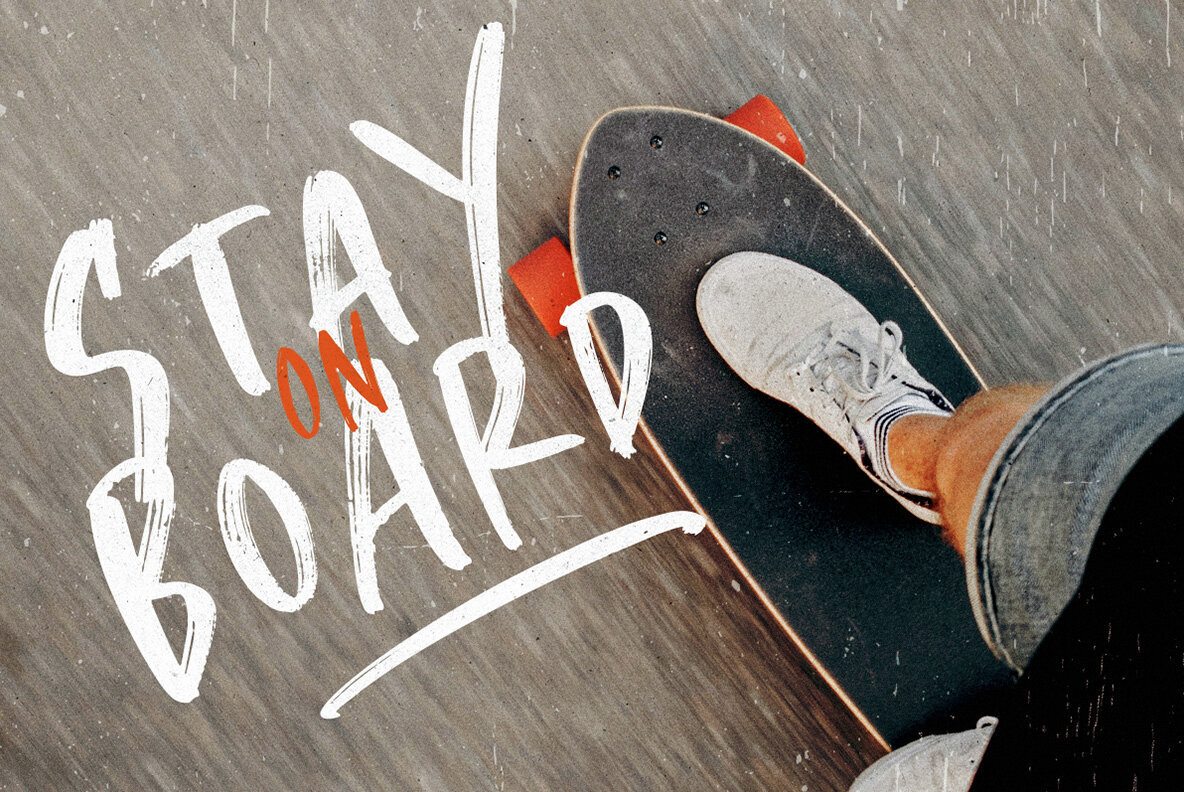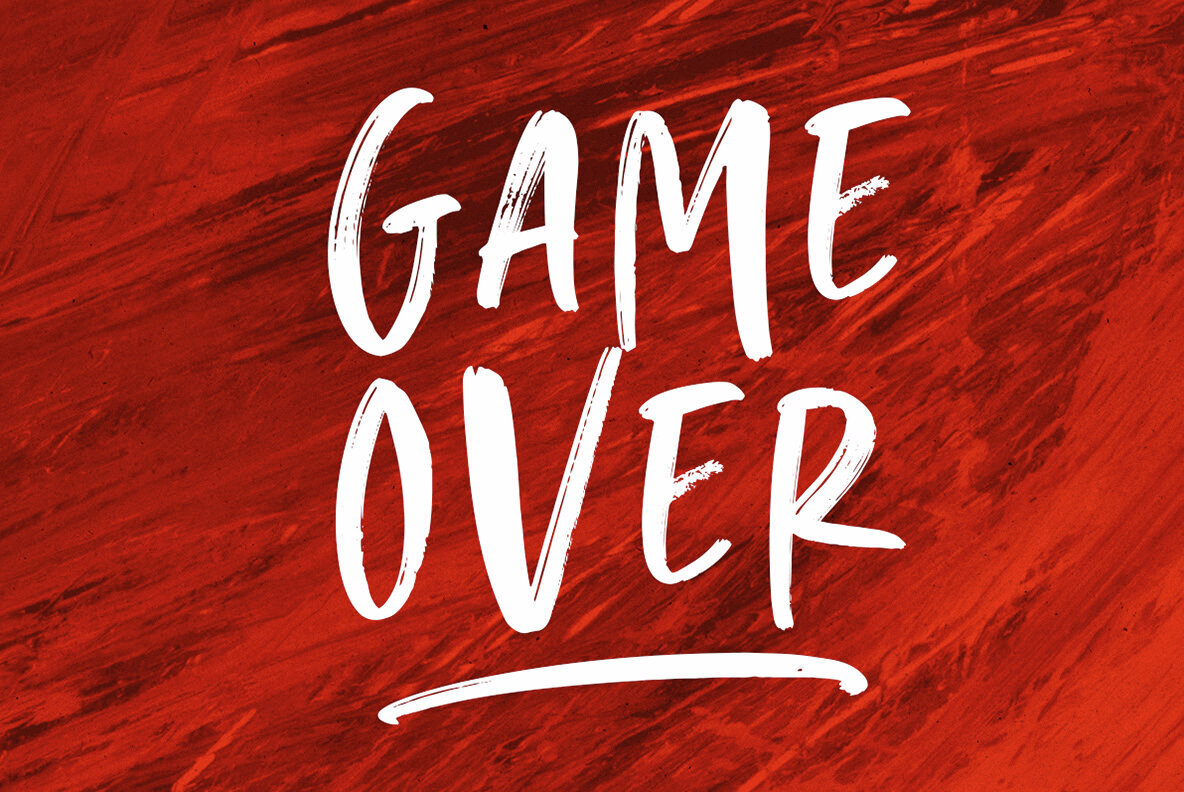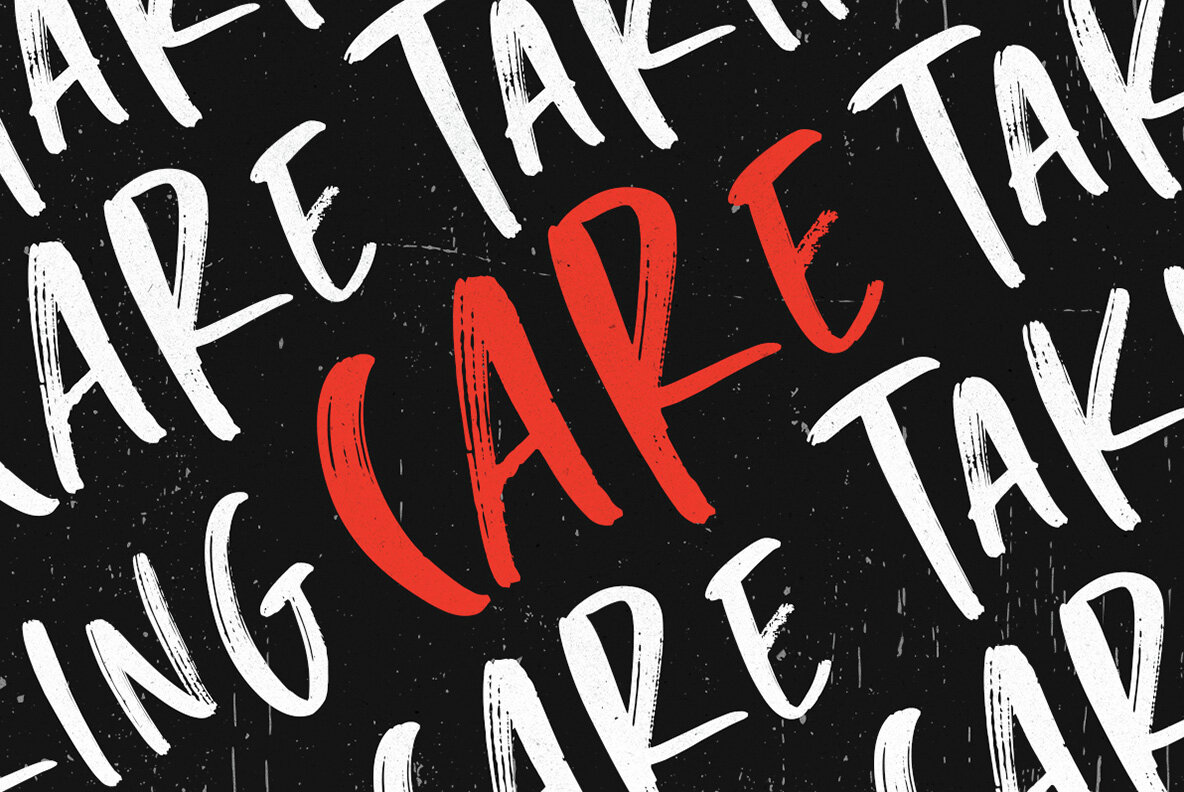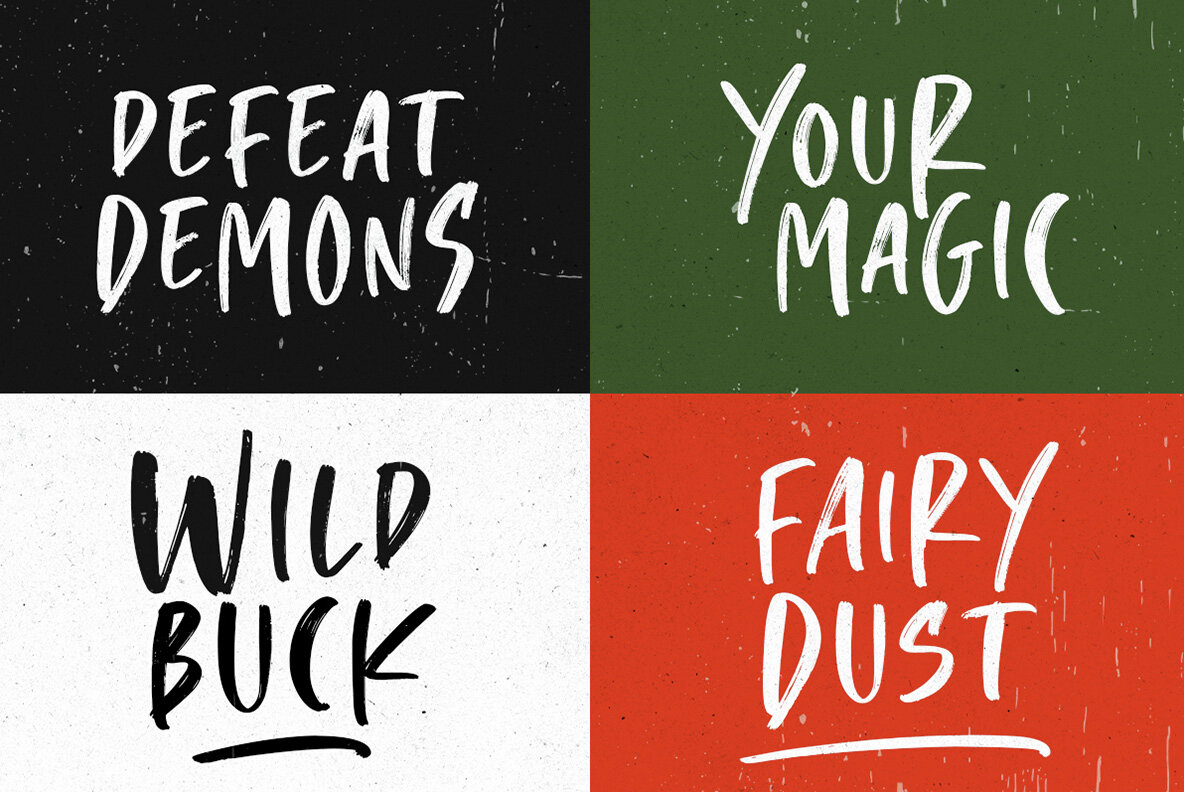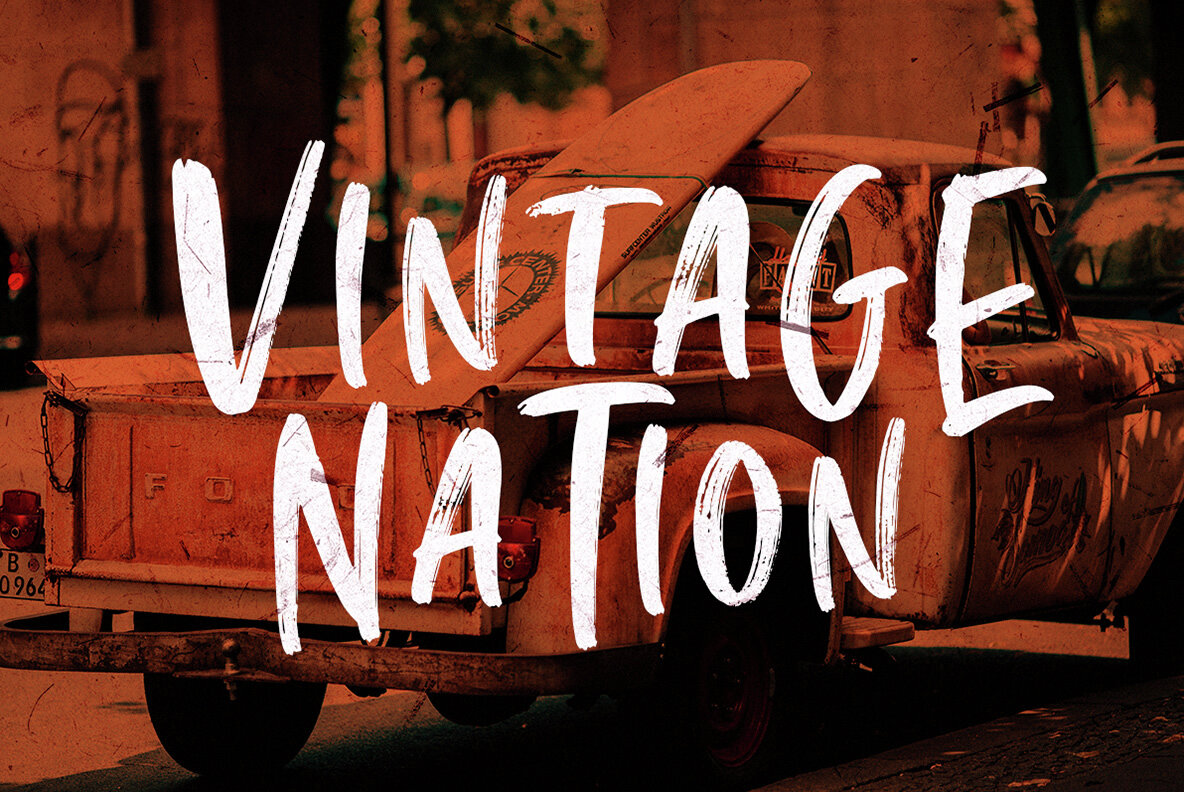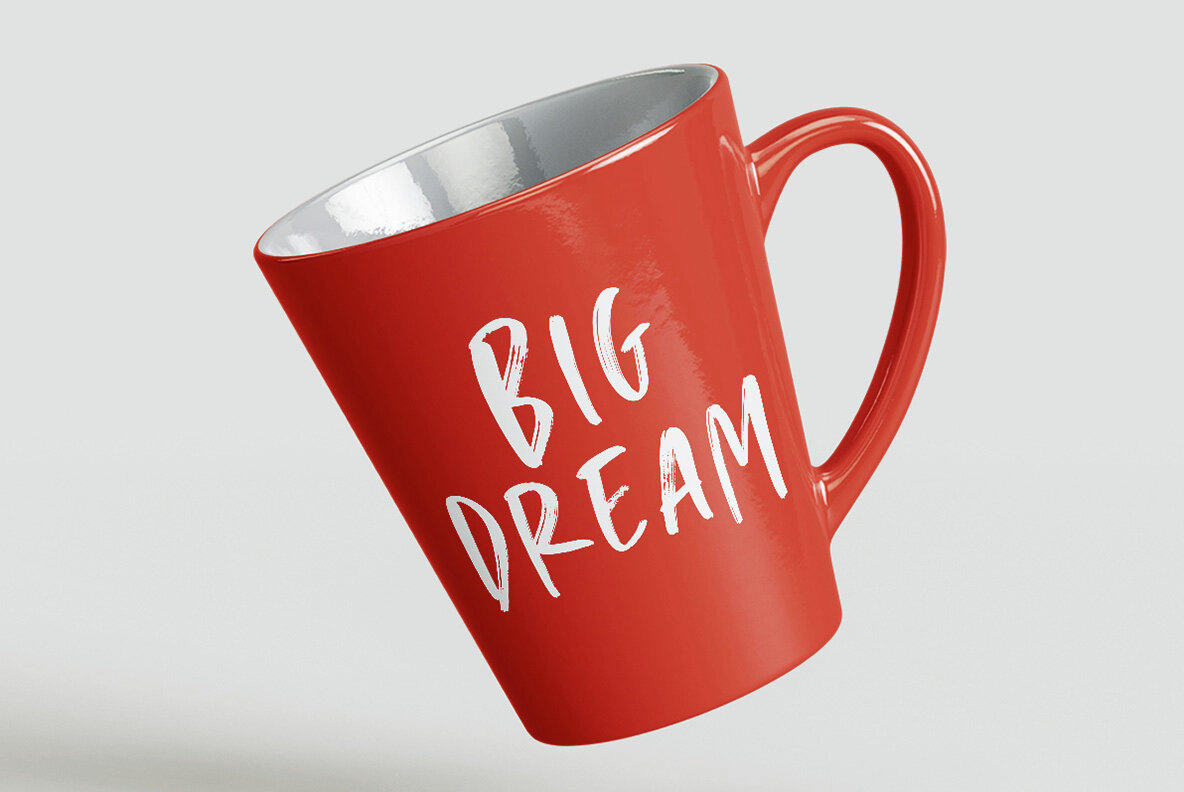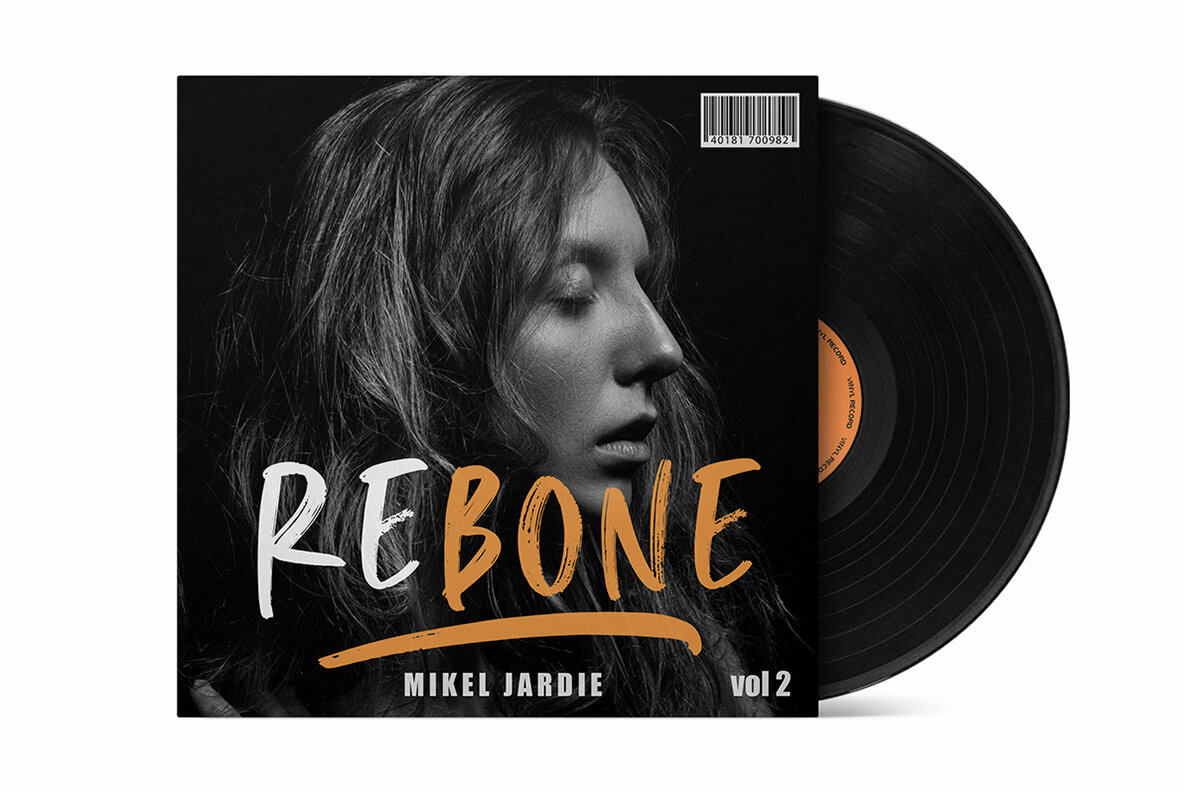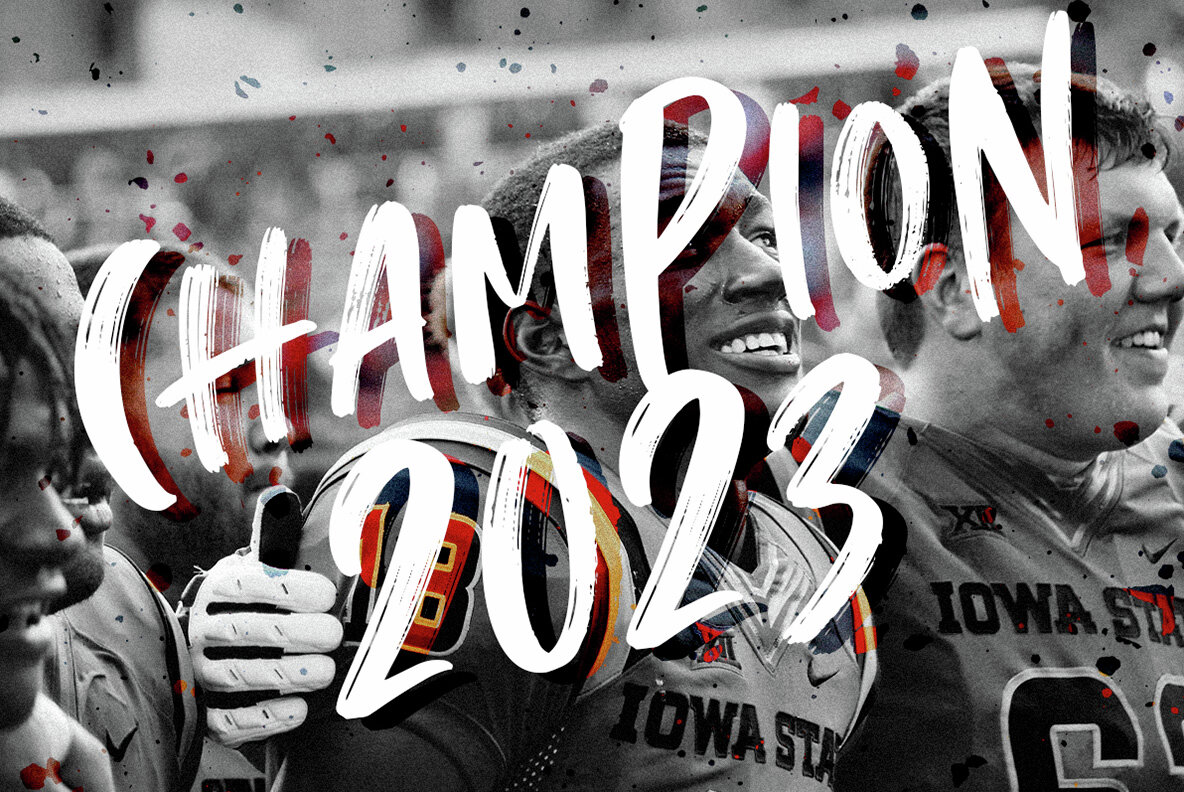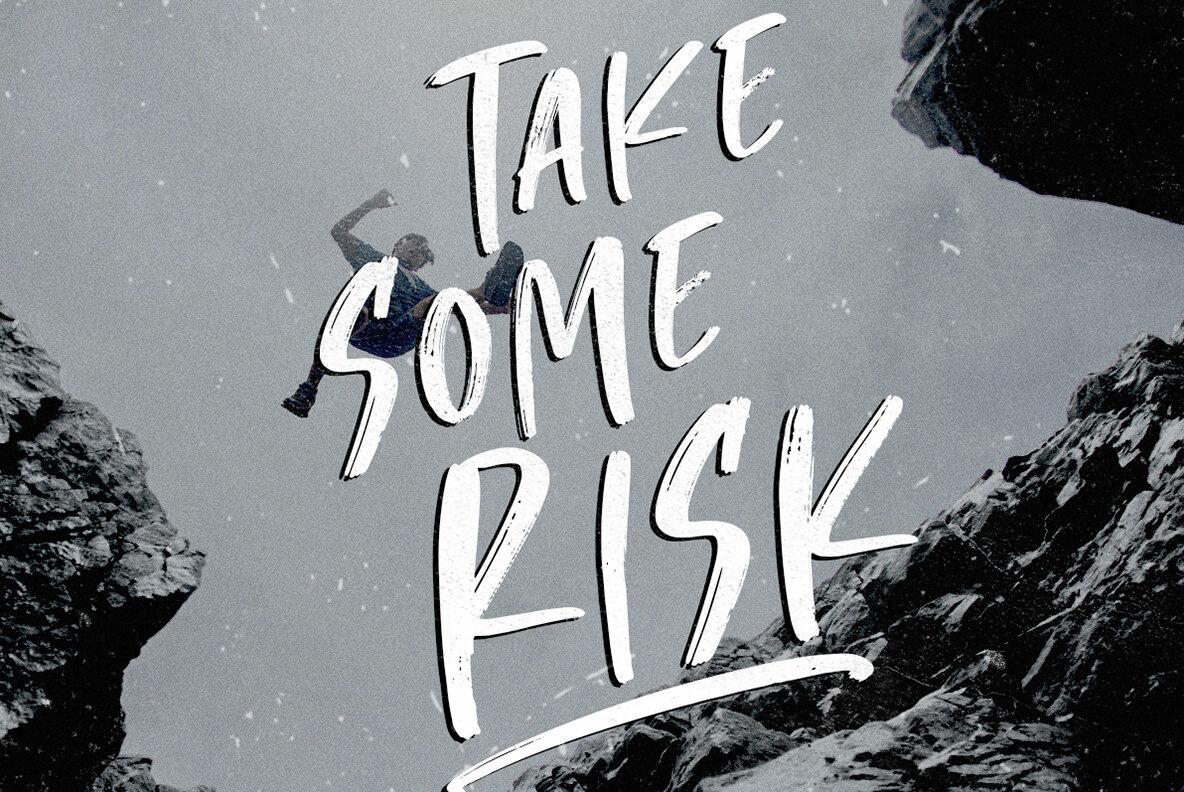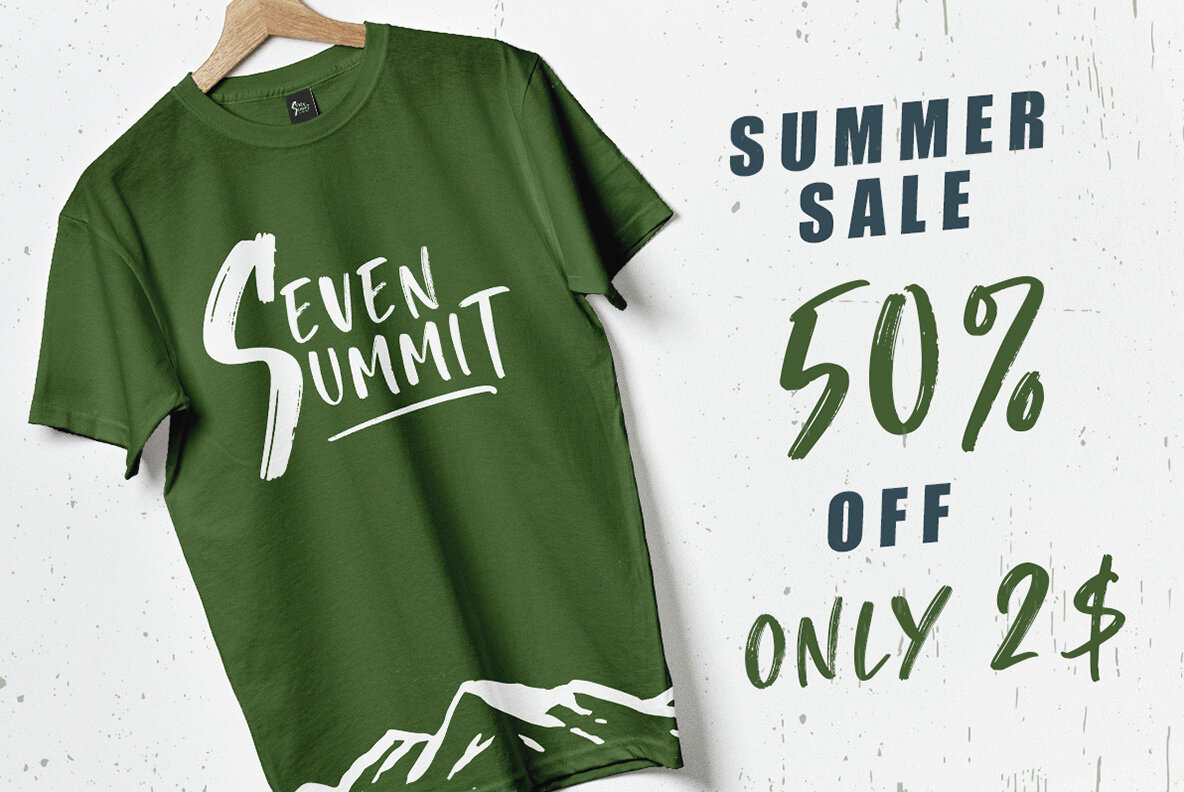
Move Forward Font
Move Forward Regular
Move Forward is a distinctive all-caps font featuring a dynamic brush texture. Designed for impactful displays, it offers uppercase and lowercase variations with diverse heights, extending into numbers and symbols, and supports multiple languages. Its unique OpenType feature allows for custom underlines by typing an underscore followed by a number (1-3) within your text, such as in "Mar_2ker." Ideal for branding, posters, quotes, and street-style designs, this font provides a versatile, expressive option for your creative projects.Move Forward: Textured Brush Font With Linguistic Variety